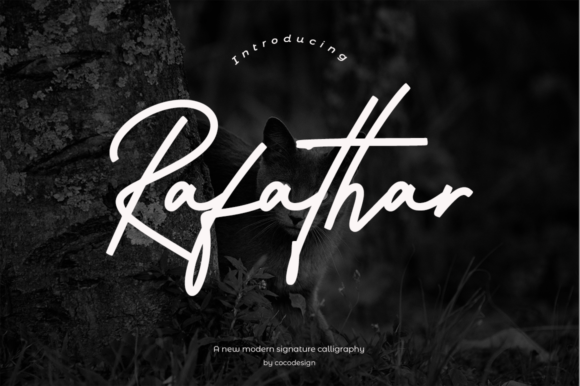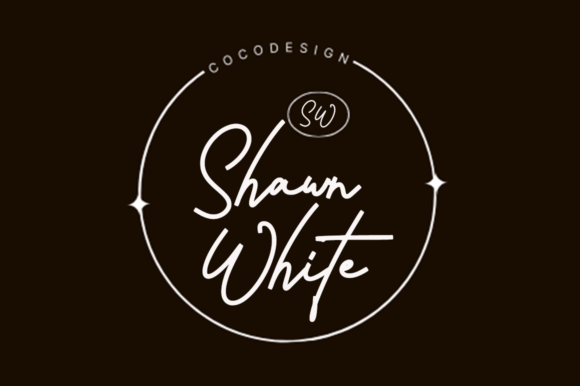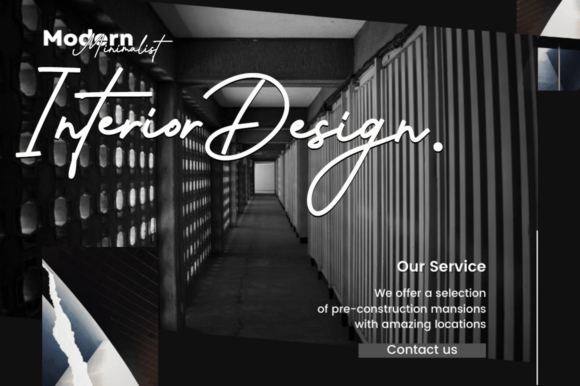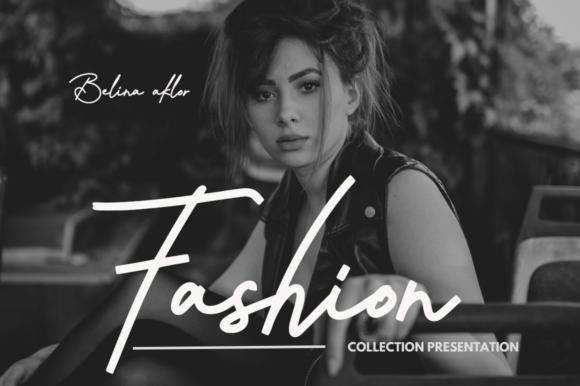
Rafathar Font: Elegant Signature Script for Wedding Design & Branding
About the Rafathar Font
Add a touch of class to your work with the Rafathar Font, a truly exceptional typeface. Introducing Rafathar Script! This font injects natural movement into your projects, offering an infusion of elegance, class, and beauty. Dynamic and versatile, Rafathar Script effortlessly dresses your work in sophistication. Whether your latest endeavor involves branding, logos, or wedding design, this font makes a striking statement. With a flair for transforming social media posts and adverts, product packaging and design, or creating standout labels, Rafathar Script is the go-to font, as it carries the tactile charm of a handwritten note.
Rafathar Font Usage Examples
Rafathar Font Example